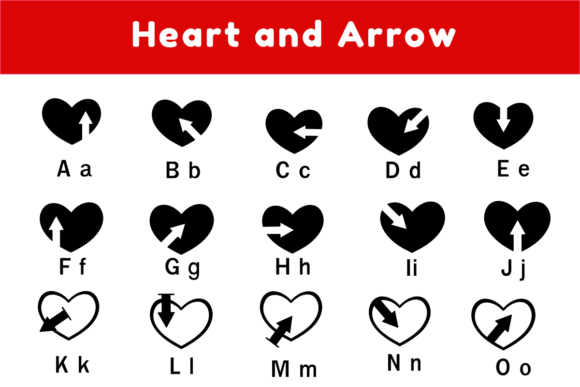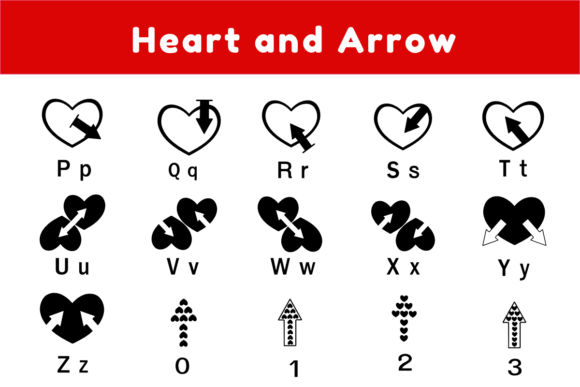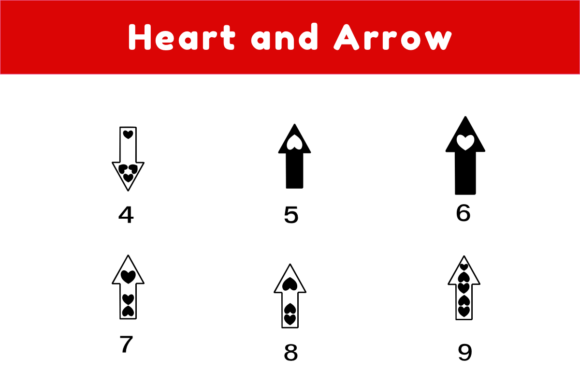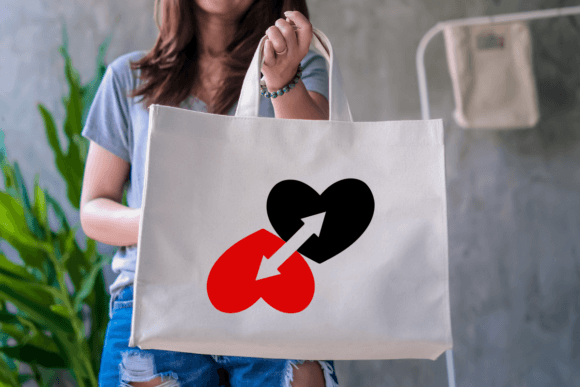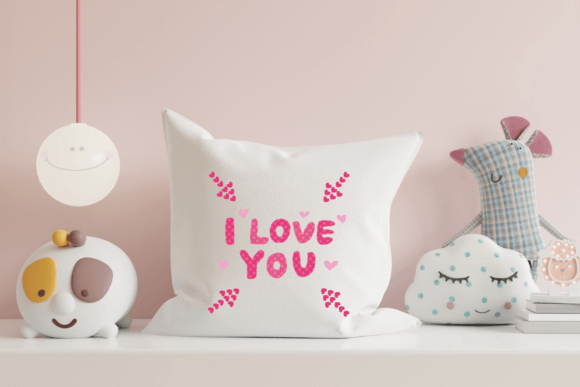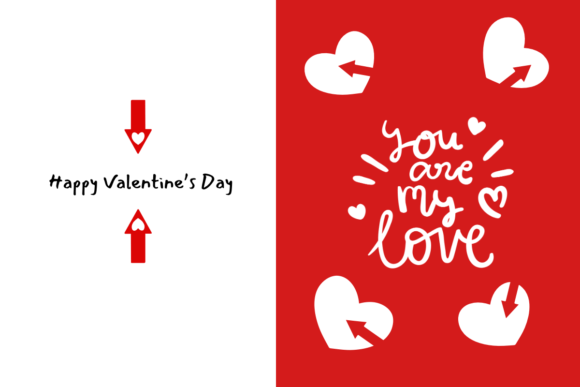
Heart and Arrow Font: Adding a Touch of Love to Your Designs
Are you looking for a unique and creative way to add a touch of love to your designs? Look no further than the Heart and Arrow Font, a dingbat font featuring symbols of hearts and arrows. This font is perfect for designers, crafters, and anyone looking to add a romantic or decorative element to their text.
What is Heart and Arrow Font?
Heart and Arrow Font is a dingbat font that replaces traditional letters and numbers with various heart shapes and arrow styles. Instead of boring and standard text, you can add a playful and whimsical touch to your designs with this font. The font features a range of designs, from simple and classic hearts to more intricate and decorative arrow styles.
Heart and Arrow Font is perfect for creative projects, such as handmade cards, scrapbooking, and other paper crafts. The font’s unique designs add a personal touch to your projects, making them stand out from the crowd. You can use the font to create custom titles, headers, and embellishments that will make your projects shine.
Great for Love-Themed Designs
As the name suggests, Heart and Arrow Font is perfect for love-themed designs. Whether you’re creating a Valentine’s Day card, a wedding invitation, or a romantic poster, this font has got you covered. The heart and arrow designs evoke feelings of love and affection, making them perfect for any project that requires a touch of romance.
Tips for Using Heart and Arrow Font
Here are some tips for using Heart and Arrow Font in your designs:
- Mix and match different heart and arrow designs to create a unique look.
- Use the font to create custom titles or headers for your projects.
- Combine the font with other fonts or design elements to create a cohesive look.
Heart and Arrow Font offers a range of benefits for designers and crafters, including:
- A unique and creative way to add a touch of love to your designs.
- A wide range of heart and arrow designs to choose from.
- The ability to add a personal touch to your projects, making them stand out from the crowd.
Heart and Arrow Font is a must-have for designers and crafters looking to add a touch of love and whimsy to their designs. With its range of heart and arrow designs, ease of use, and compatibility with most design software, this font is perfect for creative projects, love-themed designs, and anyone looking to add a unique touch to their text. So why not give it a try and see how Heart and Arrow Font can elevate your designs to the next level?
Here are some frequently asked questions about Heart and Arrow Font:
- Q: What type of font is Heart and Arrow Font?
- A: Heart and Arrow Font is a dingbat font featuring symbols of hearts and arrows.